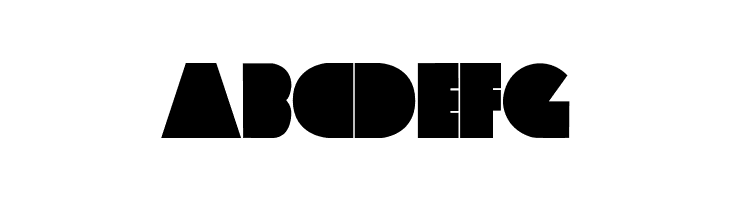
A playful, hand-drawn font with an energetic and whimsical style.
A whimsical, playful script font with a handwritten style.
A bold, geometric font with a futuristic and modern design.
A bold, outlined font with a playful, retro aesthetic and hand-drawn quality.
A bold, textured font with a distressed, grunge-like appearance.
A playful, hand-drawn font with tall, narrow characters and a whimsical style.
A playful, hand-drawn font with dynamic strokes and artistic flair.
A bold, ornate Blackletter font with dramatic, angular letterforms.
A bold, condensed Blackletter style font with sharp, angular lines and intricate detailing.
A bold, condensed, italic Blackletter-style font with a vintage gothic aesthetic.
A bold, expanded blackletter font with a traditional Gothic style.
A bold, italicized font with high contrast and decorative, angular features.
A bold, italic blackletter font with sharp, angular lines and a vintage feel.
A bold, blackletter font with a medieval and dramatic style.
A bold, italic blackletter-inspired font with dynamic, decorative characters.
A bold, blackletter-inspired font with a gothic and medieval flair.
A bold, blackletter font with a gothic, medieval style.
A bold, condensed Blackletter font with intricate, angular letterforms.
A bold, italic Blackletter-style font with sharp, angular edges and high contrast.
A bold, dramatic Blackletter-style font with sharp, ornate details.
A bold, condensed blackletter font with a slight slant and ornate details.
A bold, expanded Blackletter font with an italic slant and tight spacing.
A bold, modern blackletter font with sharp, angular characters.
A bold, shadowed font with a modern blackletter style.
A bold, blackletter-style font with intricate, angular details.
A bold, shadowed Blackletter style font with dramatic, angular lines.
A bold, shadowed, italic font with a dynamic, gothic-inspired style.
A dynamic, cursive calligraphy font with expressive strokes and artistic flair.
A bold, hand-drawn font with a playful and organic style.
A bold, hand-drawn font with a playful and vintage feel.
A bold, collegiate-style font with outlined, blocky characters.
A bold, collegiate-style font with strong geometric shapes and a three-dimensional effect.
A bold, modern sans-serif font with clean, geometric lines.